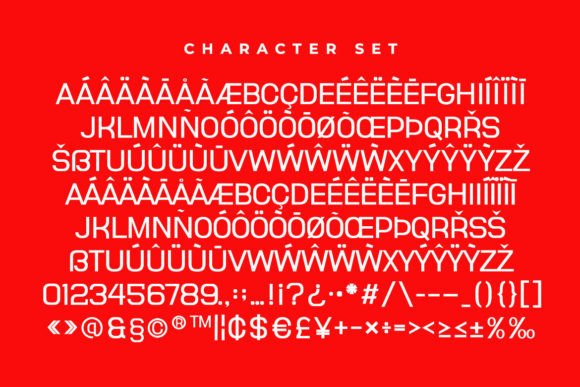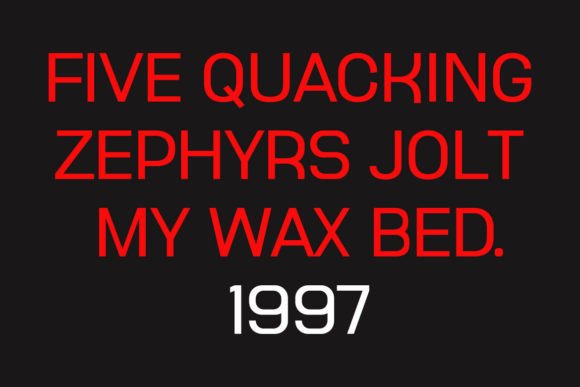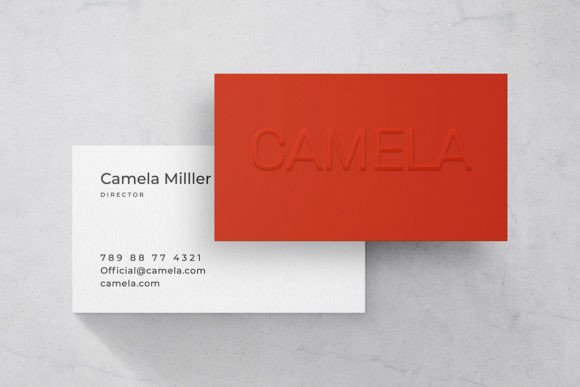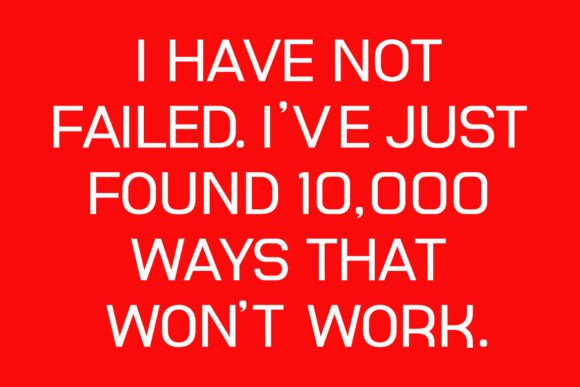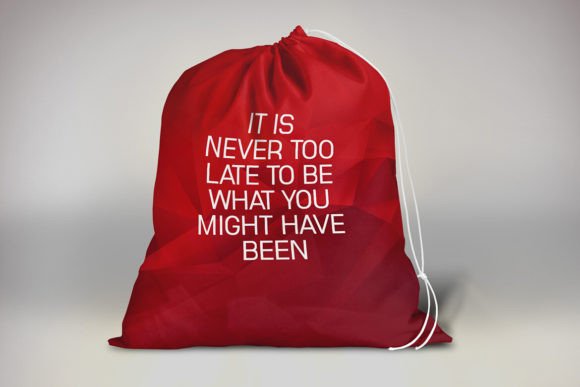
Gerald Font: A Modern and Simple Marvel
Gerald Font is a modern and simple font designed specifically for display purposes, making it perfect for headings, logos, branding, magazines, product packaging, and invitations. What sets it apart is its ease of use and OpenType features, which allow for a high degree of customization.
What I Love About Gerald Font
- ✨ Unique Ligatures: The font comes with more unique ligatures than your average font, giving your designs a distinctive touch.
- ✅ Easy to Use: Despite having advanced features, Gerald Font is incredibly easy to use, even for those who are new to typography.
- 💡 OpenType Features: With OpenType features, you can customize your text to a great extent, making your designs more versatile.
While Gerald Font is excellent for display purposes, it may not be the best choice for body text due to its design as a display font. ⚠️ Also, some users might find the lack of extensive language support a limitation, but for English and some other languages, it works beautifully.
The Designer Inspiration Behind Gerald Font
Gerald Font was designed with the modern designer in mind. Its creator aimed to produce a font that was not only beautiful but also highly versatile and easy to use. The inspiration came from a desire to merge simplicity with unique typographic elements, making it perfect for creative projects that demand a bit of flair.
Q: Is Gerald Font suitable for body text?
A: While Gerald Font is primarily designed for display purposes, it can be used for short paragraphs of body text. However, for extensive reading, a more traditional body font might be more suitable.
Q: Does Gerald Font support OpenType features?
A: Yes, Gerald Font comes with OpenType features, including ligatures and stylistic alternates, which can be accessed in compatible software.